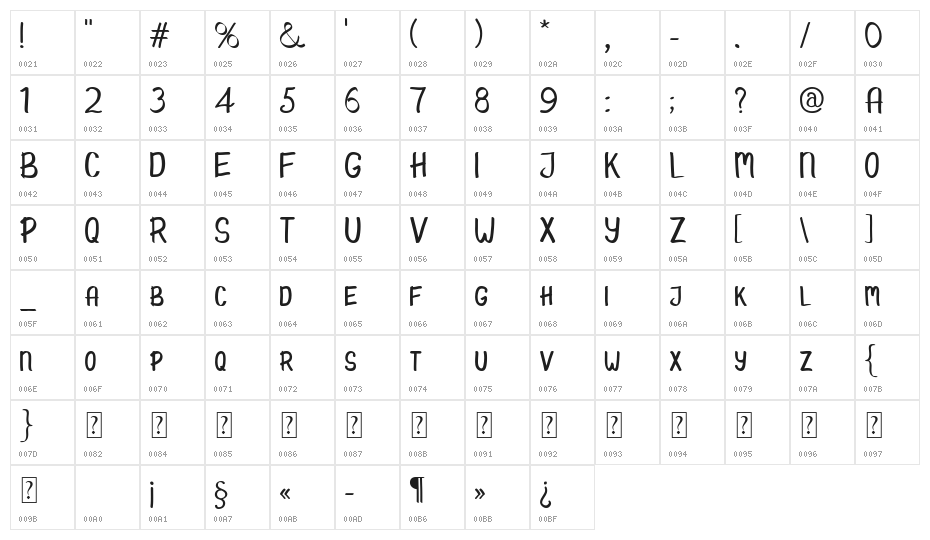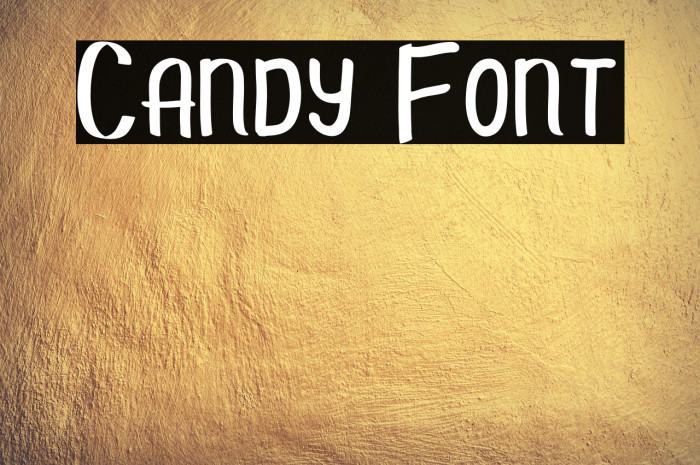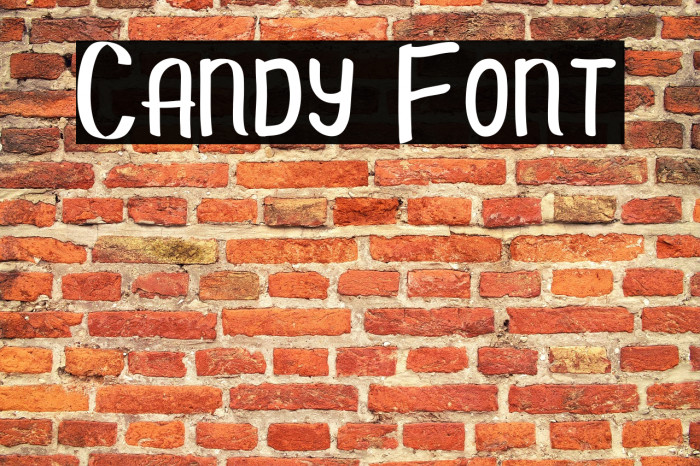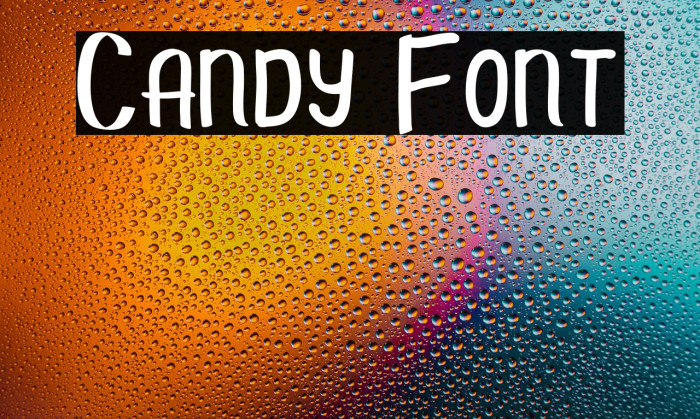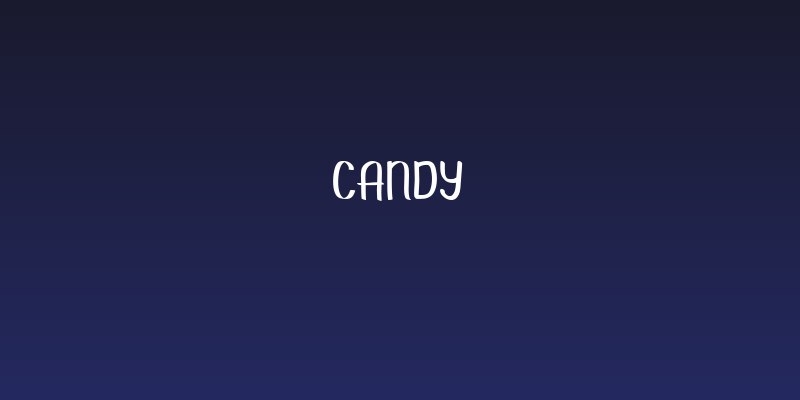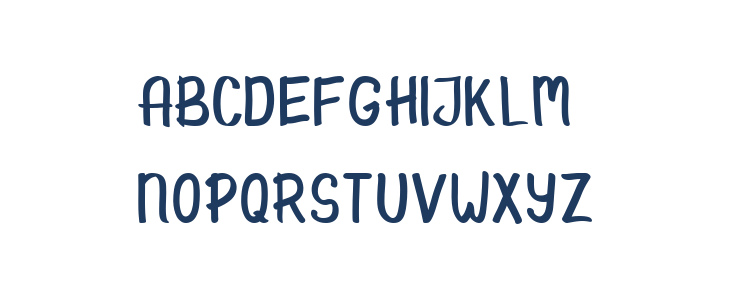
Candy Font
Candy Description
This playful and whimsical font features a handwritten style with a casual and friendly appearance. The letters have a slightly irregular baseline, adding to the informal and approachable feel. The strokes are smooth and rounded, with a moderate thickness that provides good readability. The uppercase and lowercase letters maintain a consistent style, while the numerals and special characters complement the overall design. This font exudes a sense of fun and creativity, making it ideal for projects that require a personal touch.
| Proposed Projects | Ideal for children's books, greeting cards, playful branding, and creative posters. |